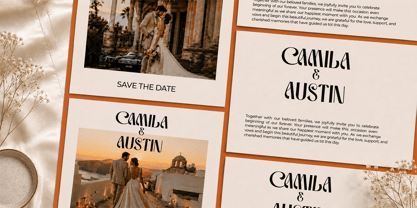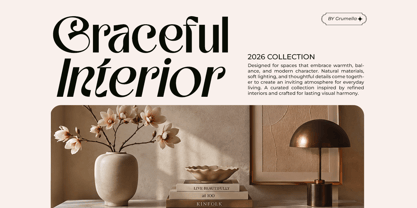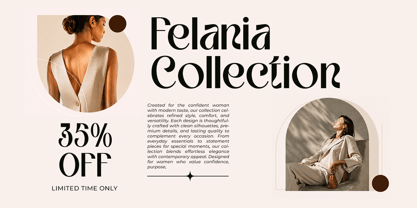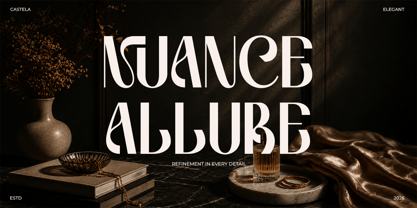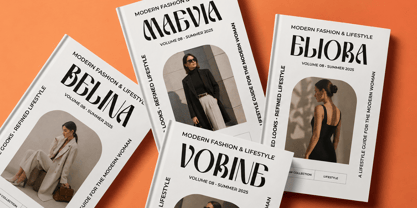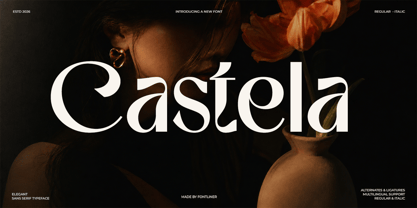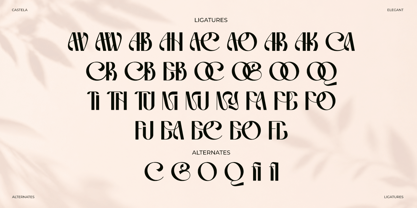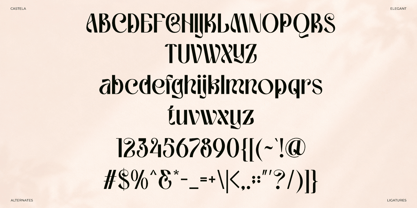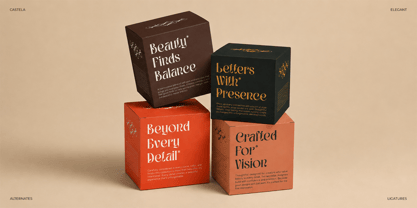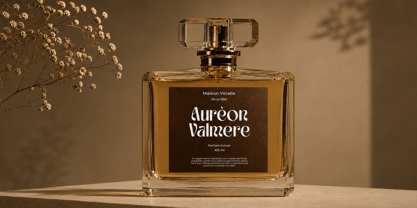
Castela
Castela is an elegant luxury sans serif display font crafted to bring sophistication and timeless beauty to every design. Featuring graceful curves, high-contrast letterforms, and stylish ligatures, this typeface is perfect for creating premium branding with a refined editorial aesthetic.
Designed for versatility, Castela is ideal for logos, fashion branding, beauty packaging, cosmetics, wedding invitations, magazines, book covers, social media templates, luxury product labels, advertising campaigns, and premium website headers. Its distinctive character delivers an exclusive look while maintaining excellent readability for headlines and display typography.
Features :
• Regular and Italic
• Stylistic Alternate
• Stylistic Ligature
• Uppercase and Lowercase
• Number, Symbol, and Punctuation